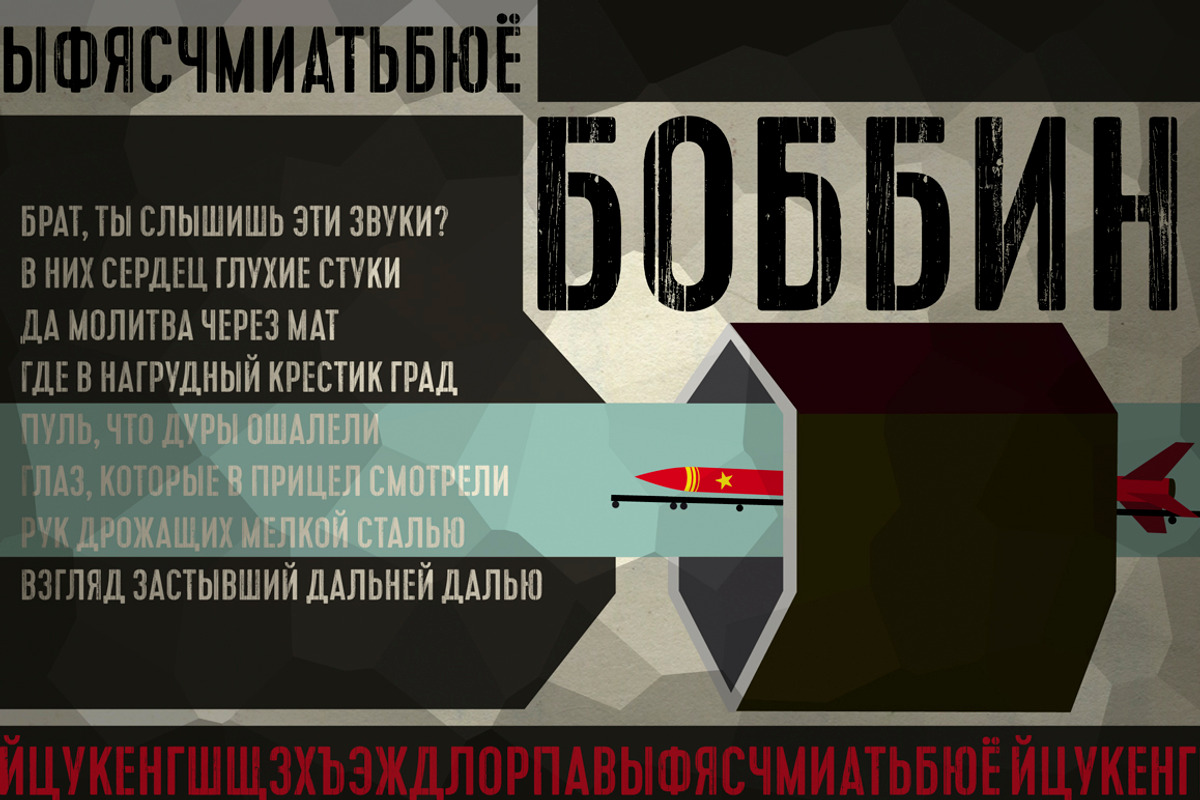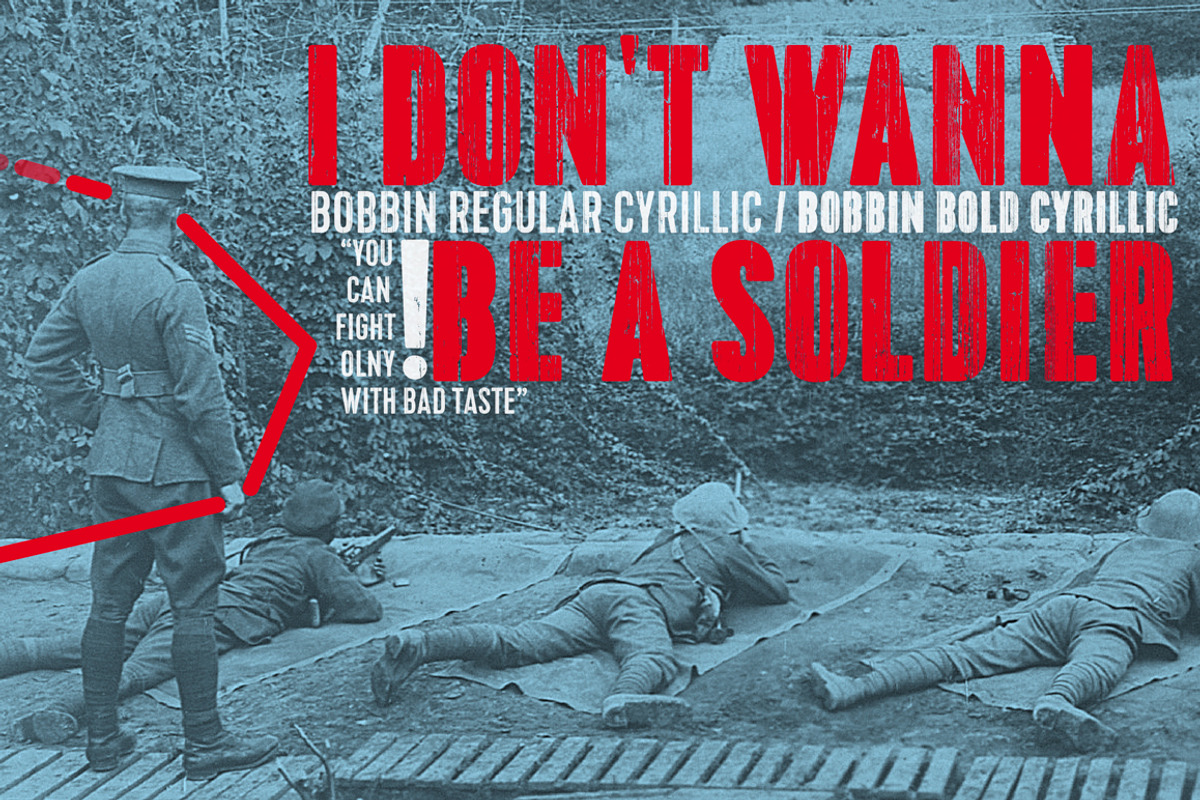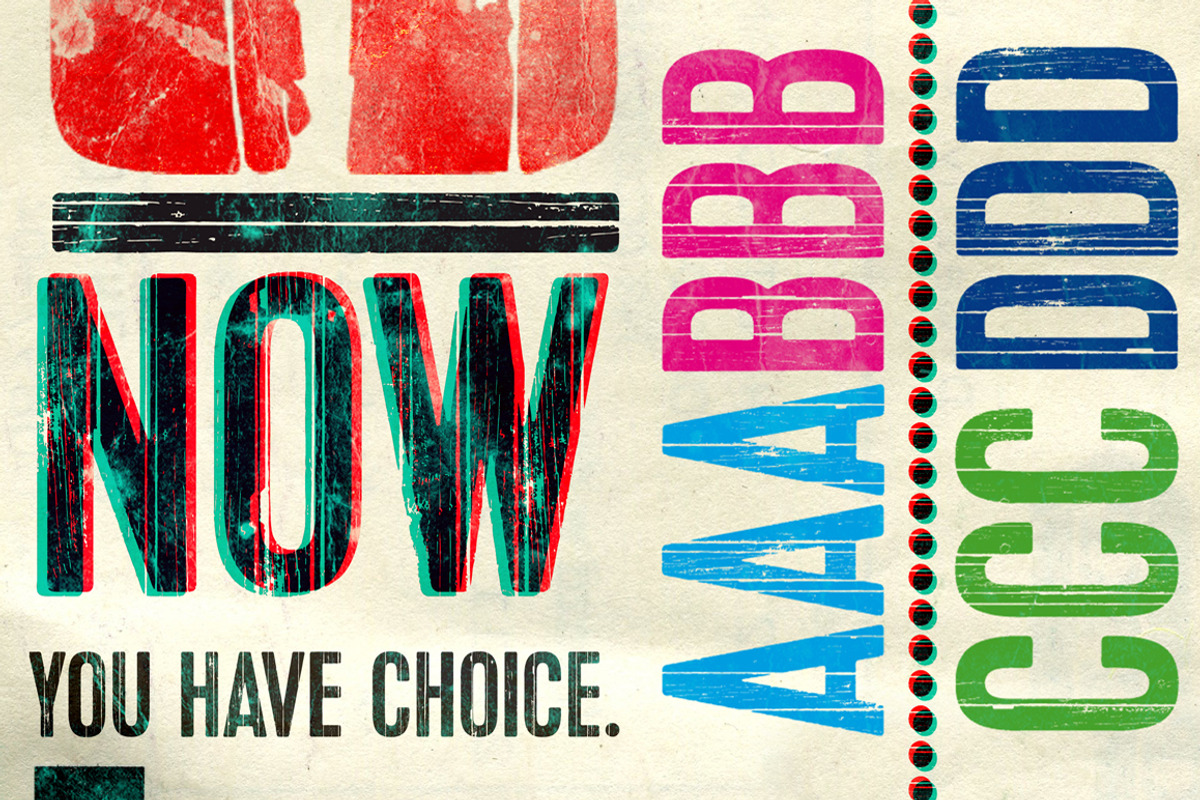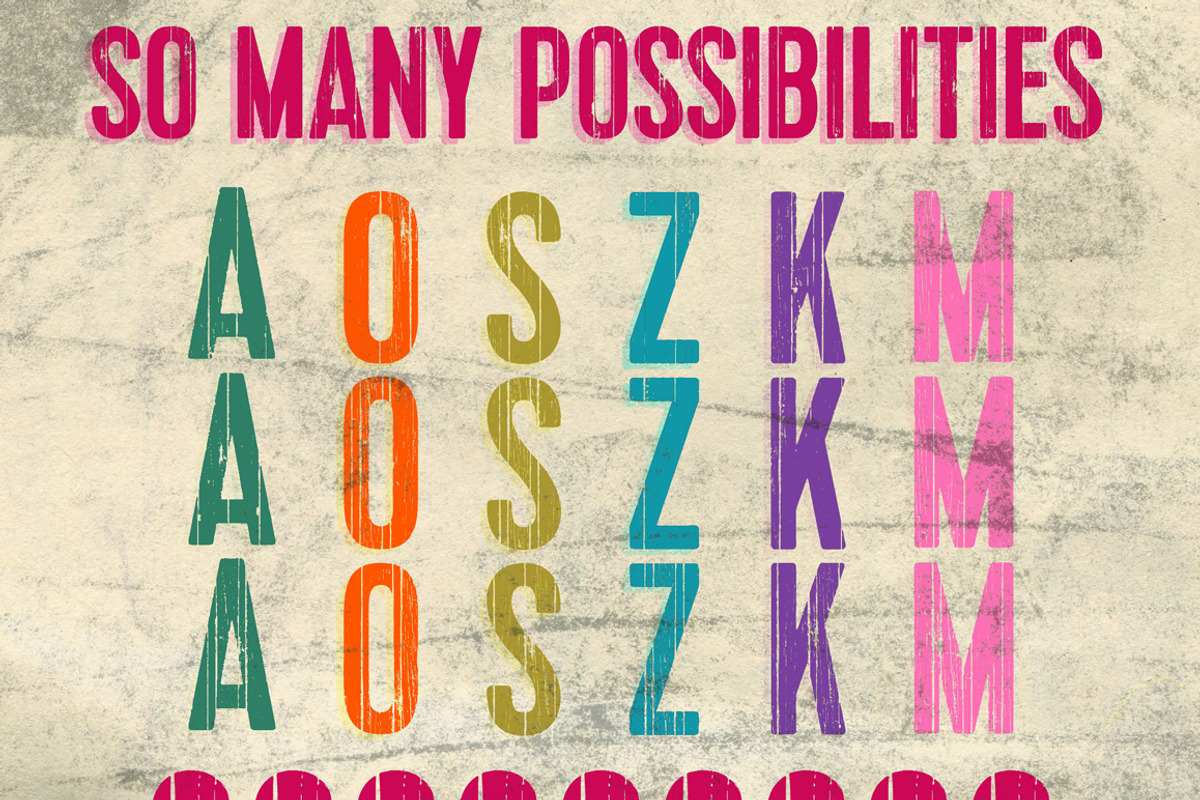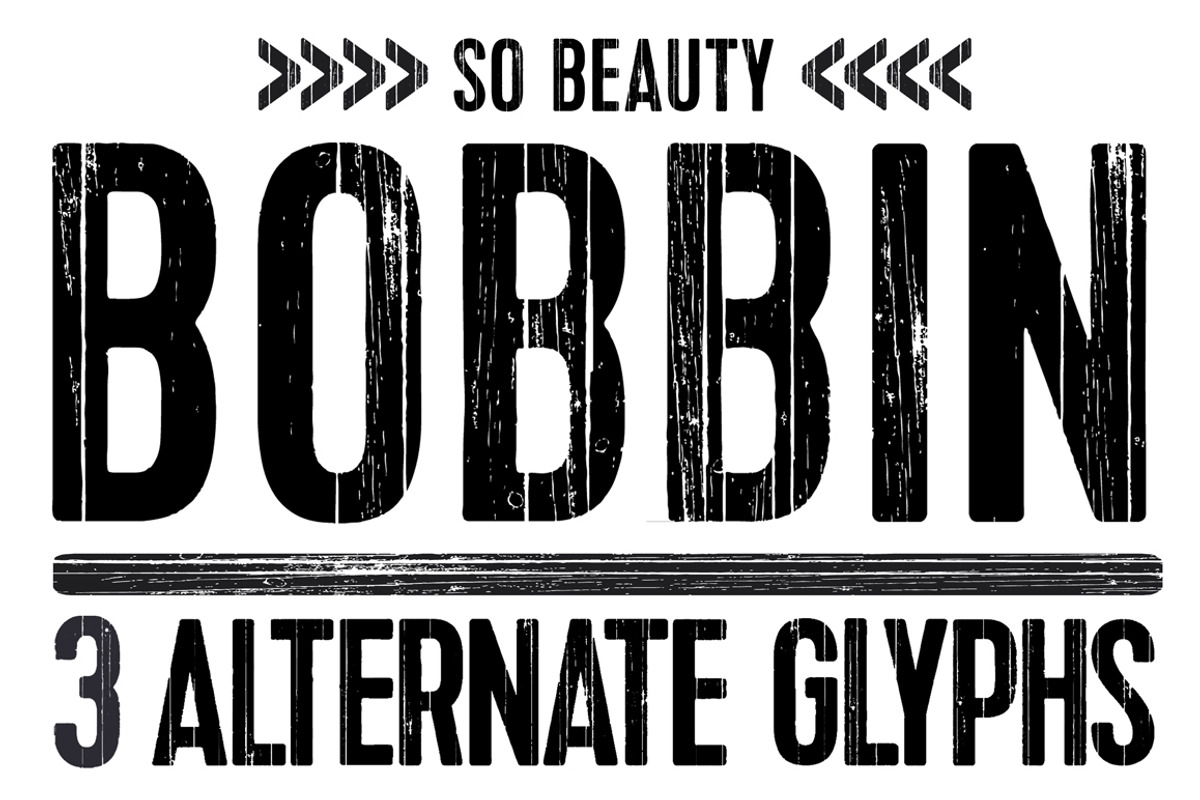
BOBBIN FONT with CIRILLIC - 50% OFF by Blazej Ostoja Lniski is a font selected for branding, posters, packaging, typography.
- In the Bobbin Cyrillic family, every variety contains 3 alternative characters with automatic replacement.
BOBBIN FONT with CIRILLIC - 50% OFF by Blazej Ostoja Lniski fits naturally into Branding, posters, packaging, typography.